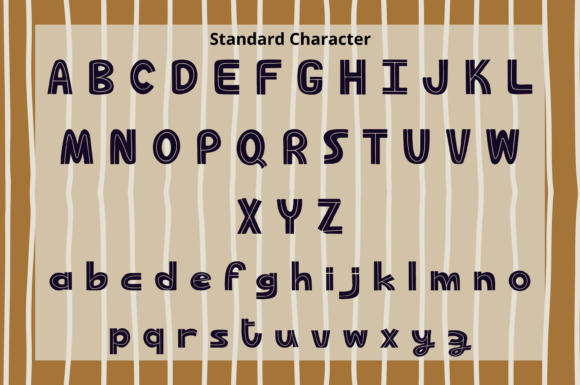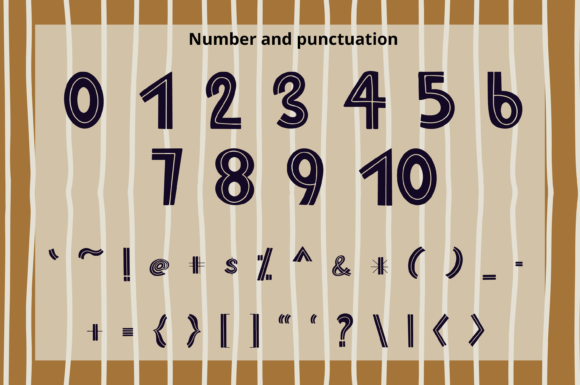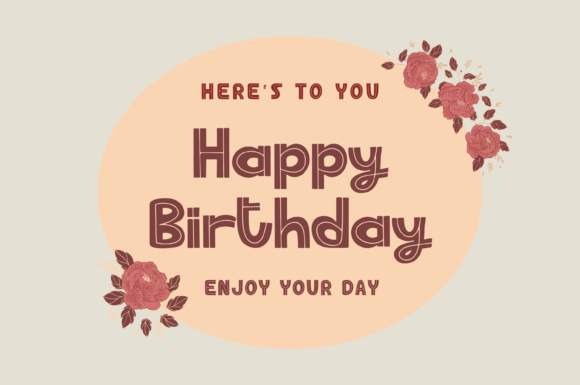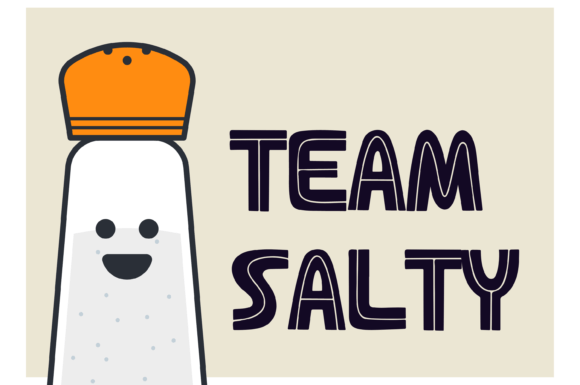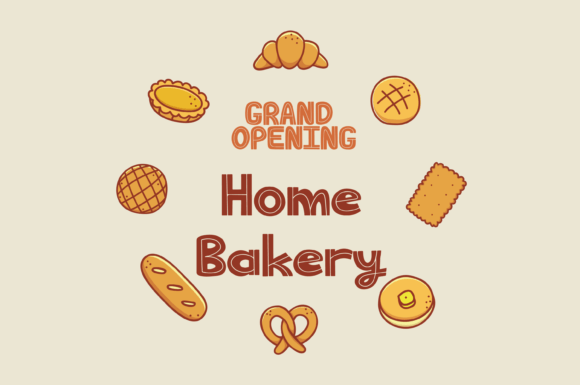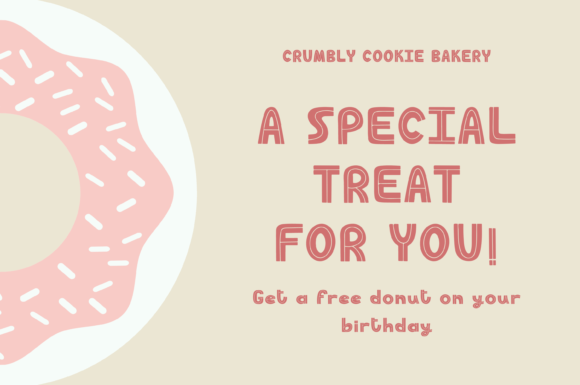
Introduction to Salty Caramel Style Font
Salty Caramel is an attractive and beautiful display font, perfect for any design project.
Delicate and stylish with a unique flair, this font will bring a modern and elegant touch to any project .